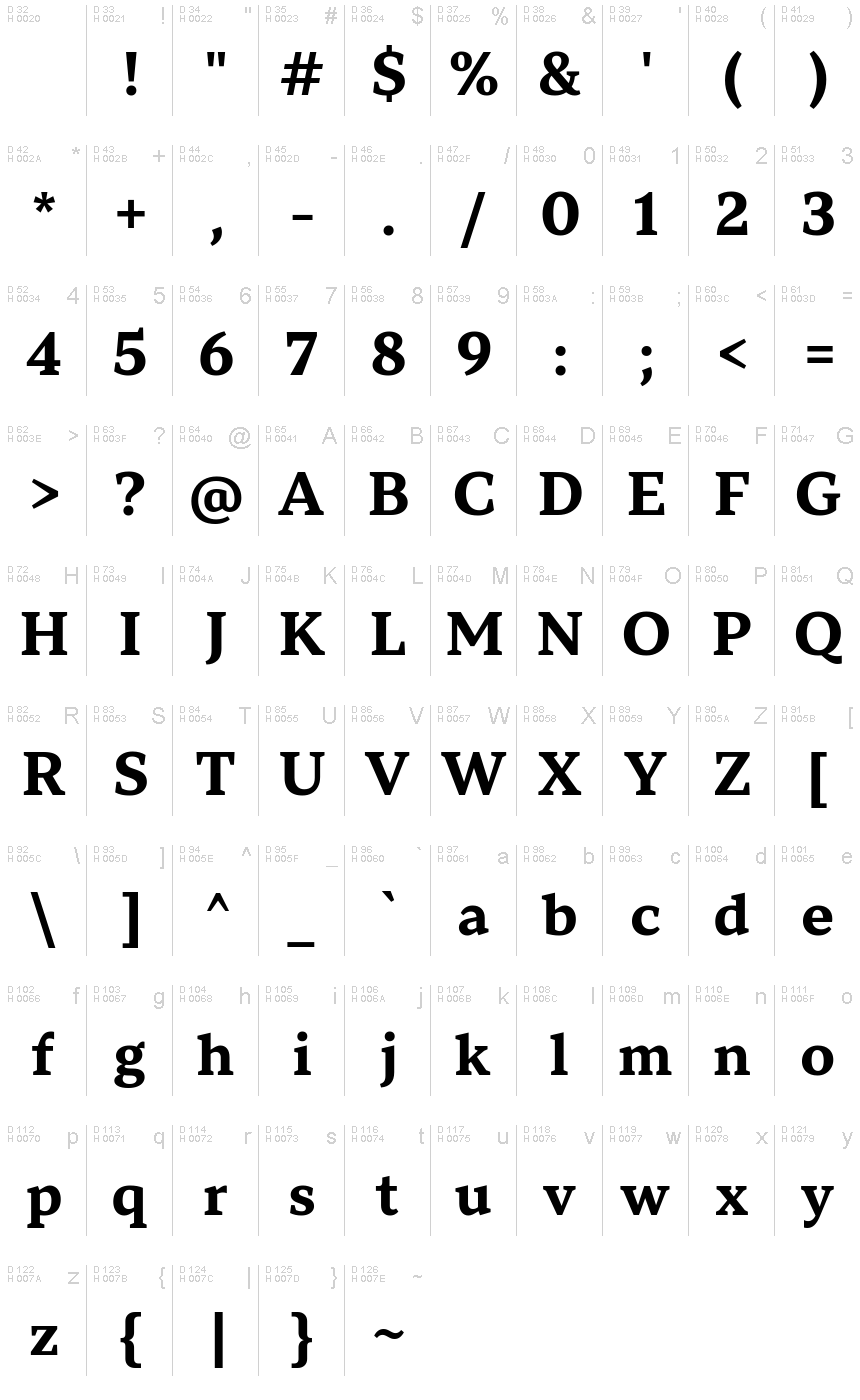
TT Norms Pro Serif Trl Bd
TT Norms Pro Serif Bd font is a striking serif typeface from the TypeType Foundry, distinguished by its bold presence and elegant curves. This font exudes sophistication with a modern flair, blending classic design elements with contemporary aesthetics. Its generous proportions create a sense of authority, making it appealing for both print and digital contexts.
The expressive strokes incorporate refined details that evoke warmth and readability, perfect for captivating headlines or impactful branding materials. Whether utilized in editorial layouts, website headers, or promotional graphics, TT Norms Pro Serif Bd delivers a unique blend of timelessness and modernity that enriches any design project. This font is ideal for projects seeking to convey confidence and creativity while maintaining an understated elegance.